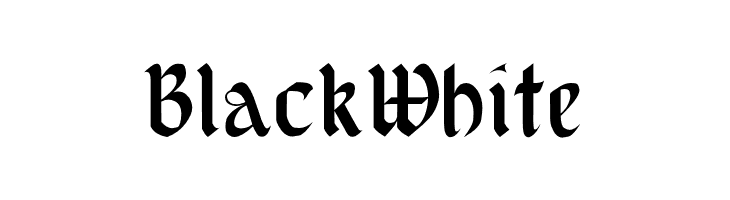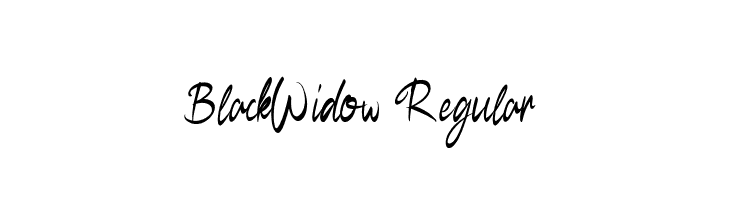
( Fonts by Thiago Mariano )
A playful, hand-drawn font with wavy, irregular outlines.
( Fonts by Thiago Mariano )
A playful, hand-drawn font with wavy, irregular outlines and a whimsical style.
( Fonts by Des Gomez )
A playful, handwritten font with tall, narrow letters and a casual, whimsical style.
( Fonts by Din Studio )
A bold and dramatic blackletter font with sharp, angular strokes.
A bold, brush-style font with an energetic and artistic appearance.
A bold, textured font with a rugged, vintage appearance.
A bold, geometric inline font with a strong, commanding presence.
A bold, geometric stencil font with a military-industrial aesthetic.
A bold, brush-like font with dynamic, angular strokes and a slanted orientation.
A dynamic, brush-style font with fluid, cursive strokes.